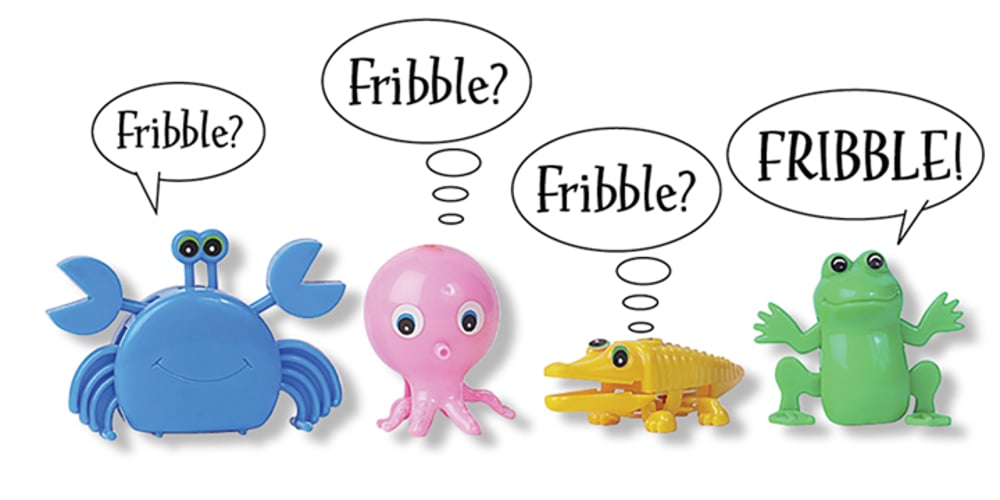
Fribble
Fribble font
Fribble Font Family was designed by Cecelia Harris and published by Letters by Wordsworth. Fribble contains 1 styles and family package options. Fribble is a delightful, frolicking font that works equally well as text and titling. The open type extras provide additional ‘bounce’ for the font.